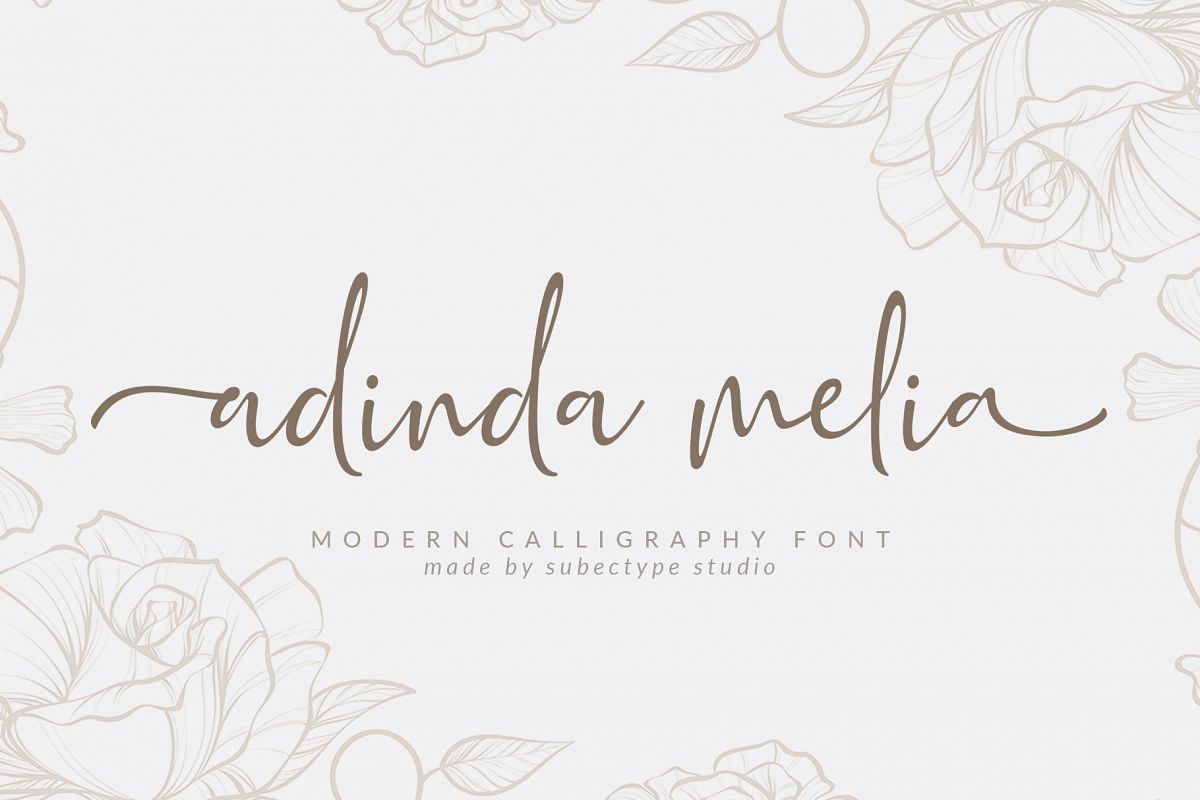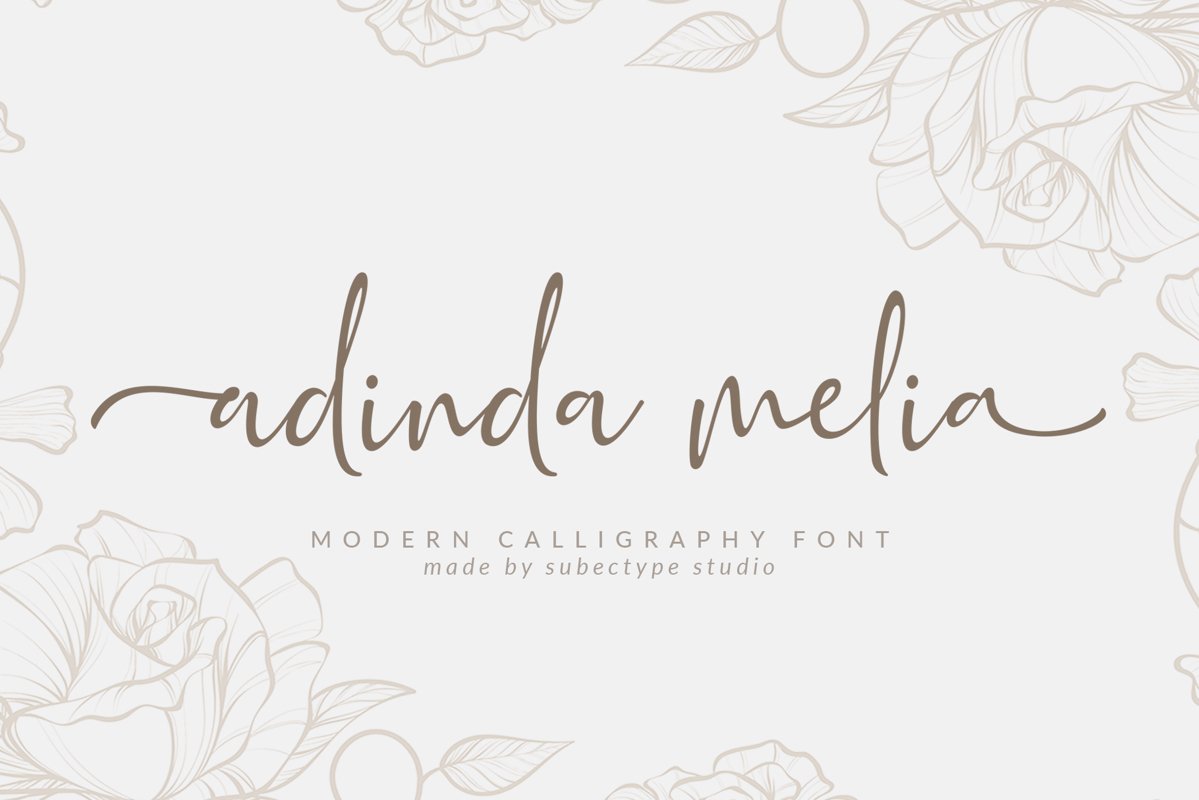
Adinda Melia / Handwritten Script
Adinda Melia
Adinda Melia is a lovely modern calligraphy font with with a touch of handwriting style. this font is perfect for creating signature logos and watermarks for photography studio or wedding invitation.
Adinda Melia includes full set of beautifull hand lettered uppercase and lowercase letters, numerals, a large range of punctuation and ligatures. All lowercase letters include beginning and ending swashes, giving realistic hand-lettered style.
in the font preview, the display of swash beginning and ending alternate font might be a little different, because there are some that look long, I changed it manually, I extended it and I formed it a little to fit the sentence,